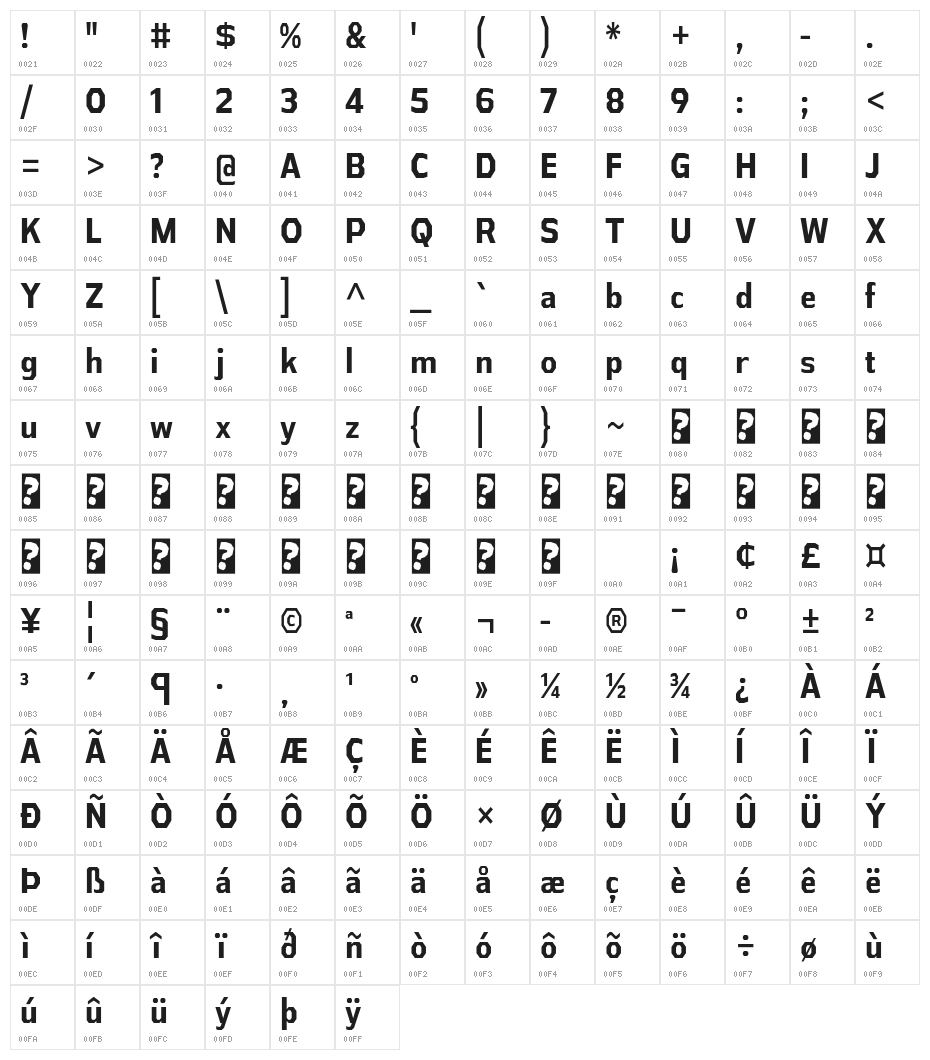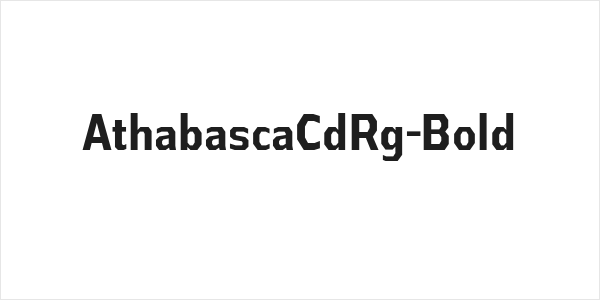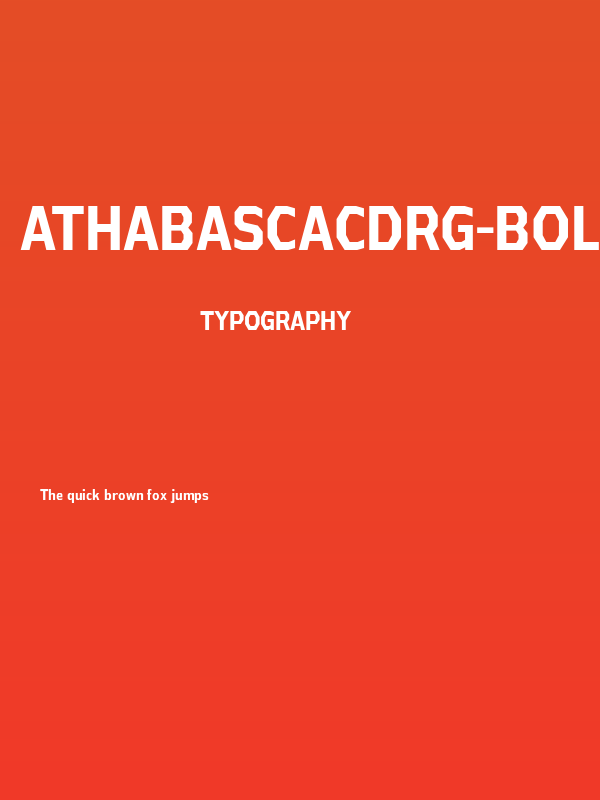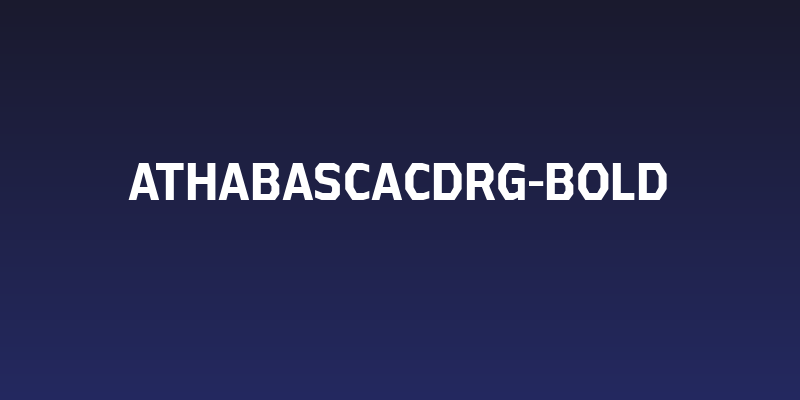
AthabascaCdRg-Bold Font
AthabascaCdRg-Bold Description
This font features a bold and robust design with a geometric and angular style. The uppercase and lowercase letters maintain a consistent thickness, giving it a strong and impactful appearance. The numbers and special characters follow the same bold and structured design, ensuring uniformity across all characters. The font's clean lines and sharp edges make it suitable for modern and dynamic projects, where a strong visual presence is required.
| Proposed Projects | Ideal for branding, headlines, posters, and signage where a bold statement is needed. |